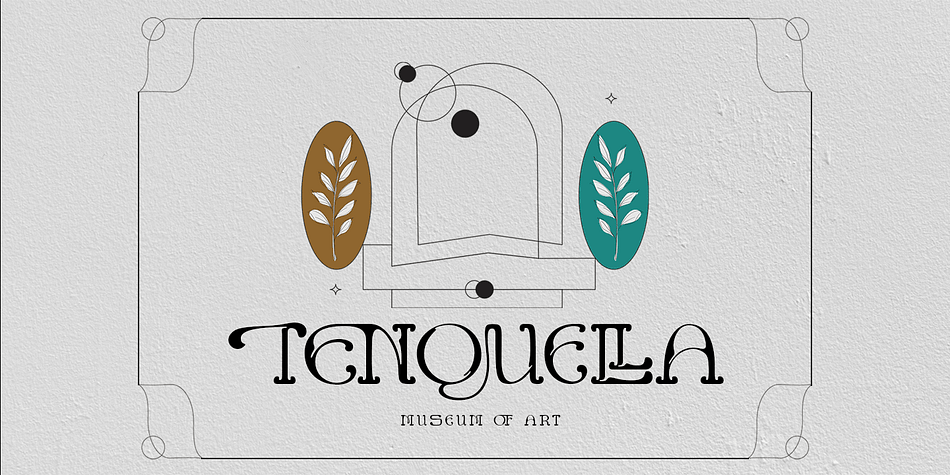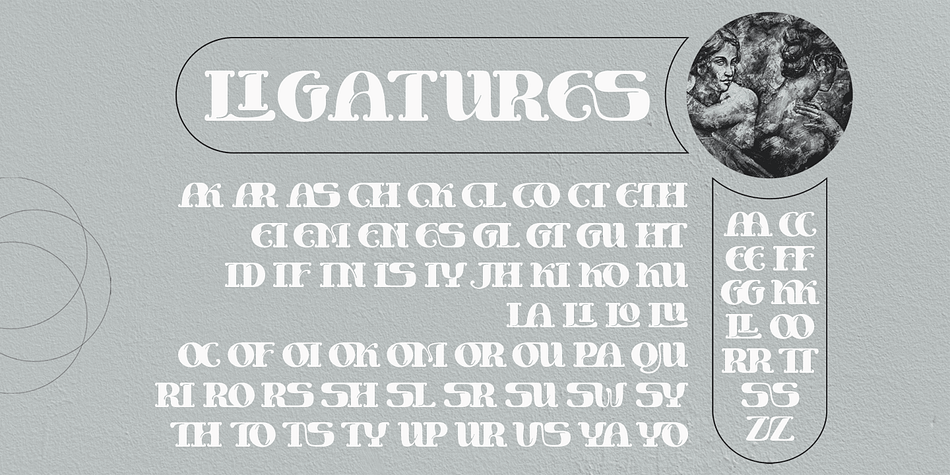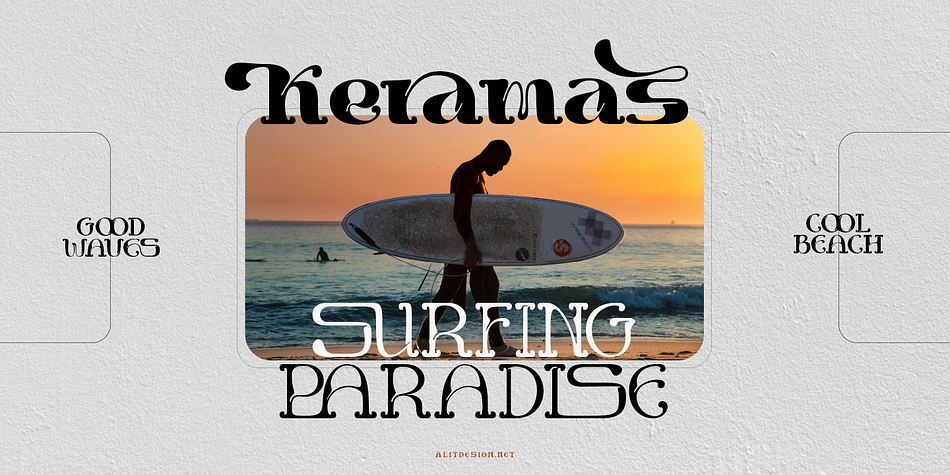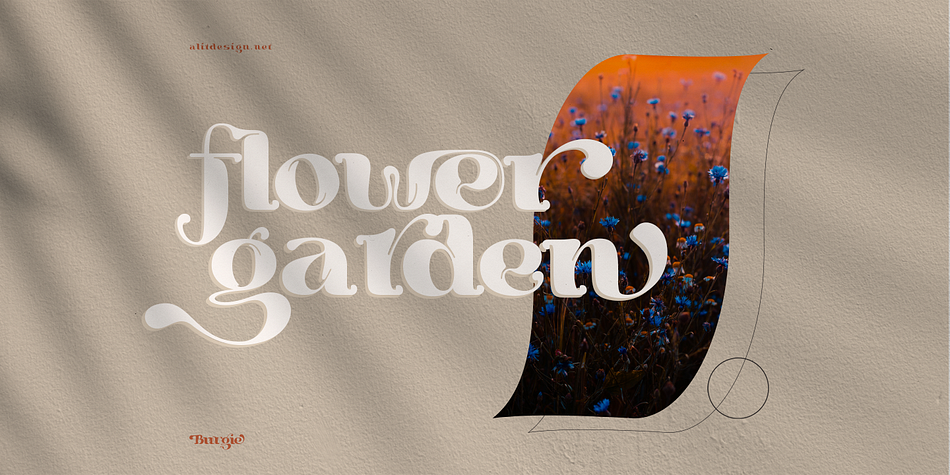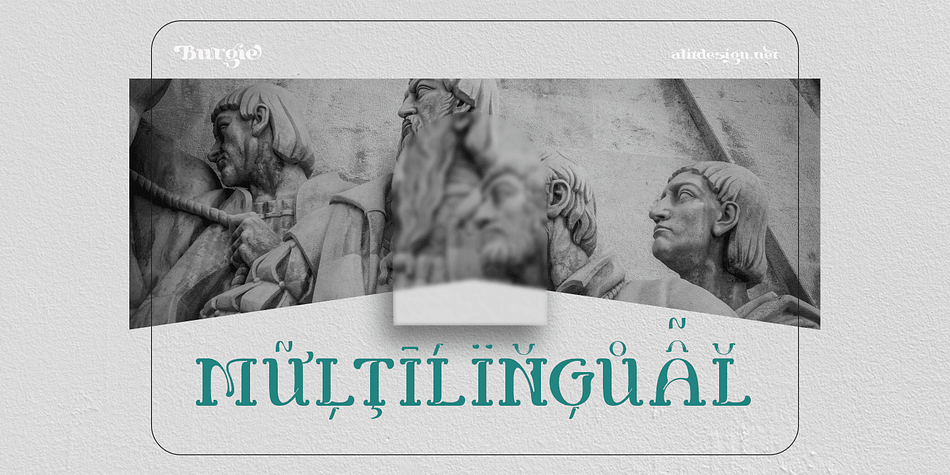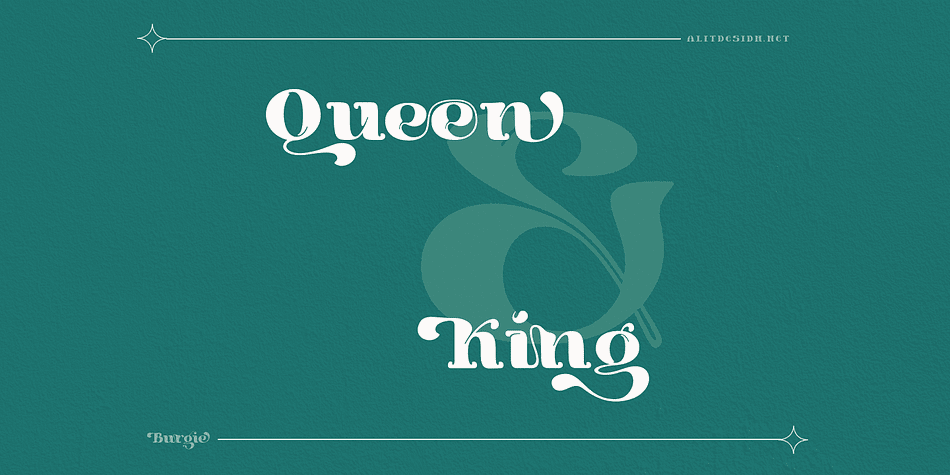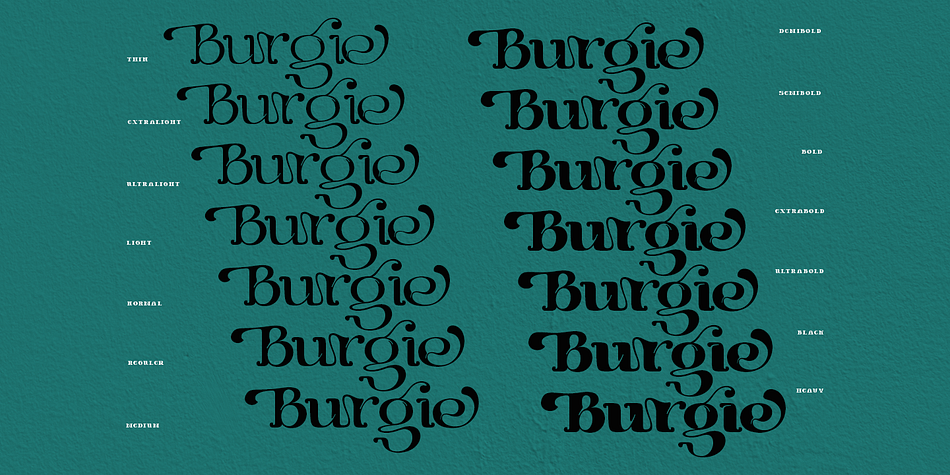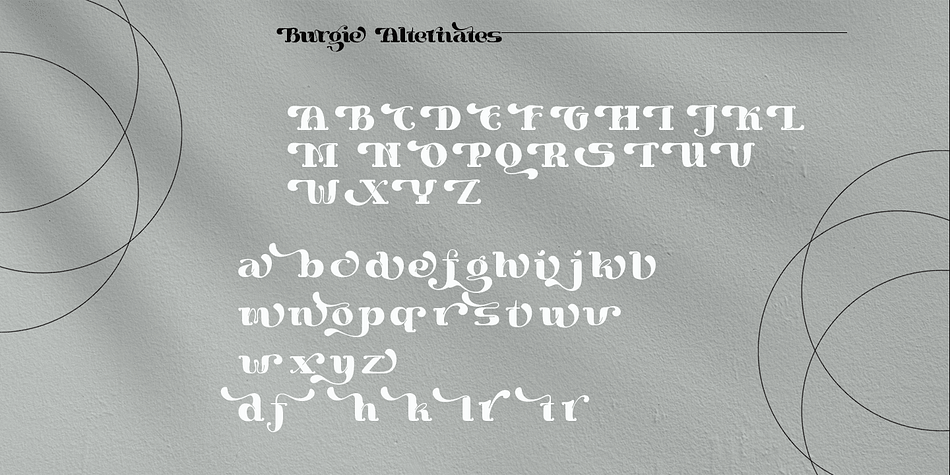
Designed by Alit Suarnegara, Burgie is a display serif font family. This typeface has fourteen styles and was published by Alit Design.
Burgie Typeface
Modern Serif font with swash alternate and unique style, a display font in a groovy and bold style that makes your designs unique and distinctive. This font has an elegant and from thin until heavy family. It is perfect for designs with classic themes, retro design, poster design and others.